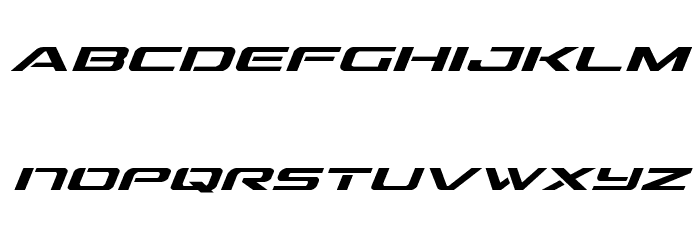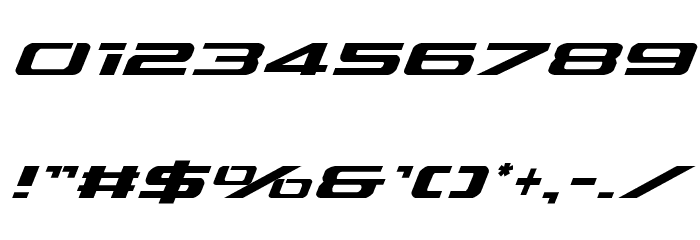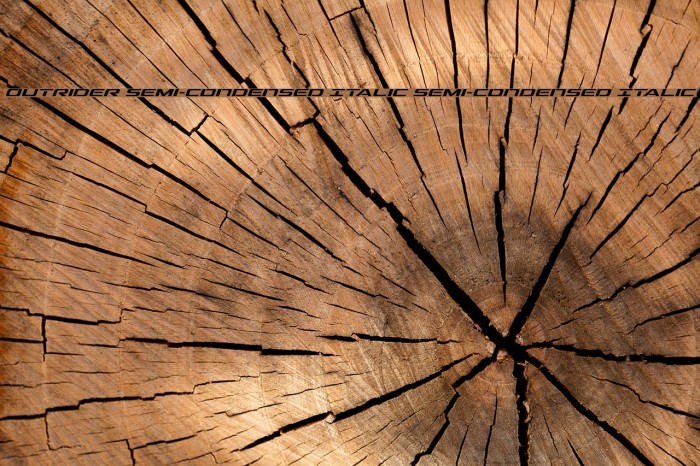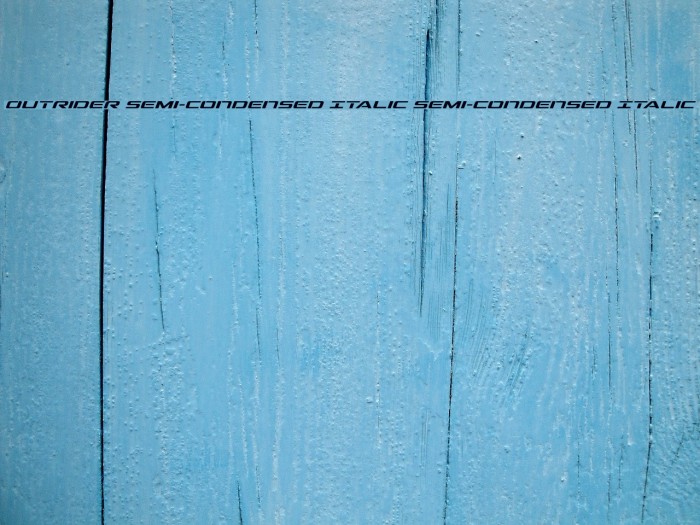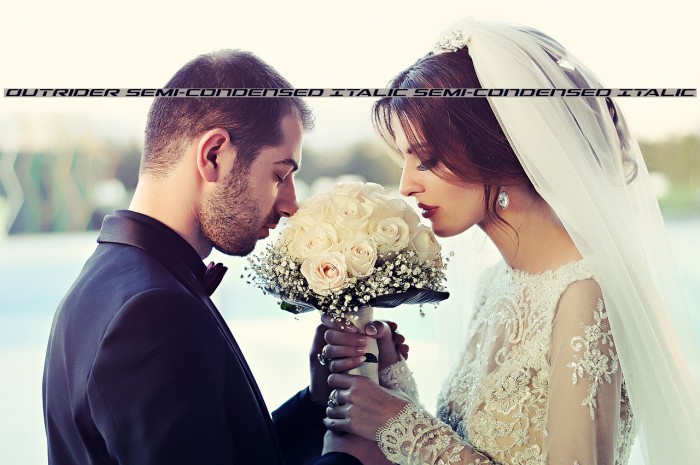
Outrider Semi-Condensed Italic Font
This font features a sleek, modern design with a semi-condensed and italicized style. The characters are slightly slanted, giving a dynamic and forward-moving appearance. The strokes are consistent in thickness, providing a uniform look across all characters. The font maintains a balance between readability and style, making it suitable for various applications. The numerals and special characters are designed to match the overall aesthetic, ensuring cohesion throughout any text. Its futuristic and streamlined appearance makes it ideal for projects that require a contemporary and edgy feel.
A sleek, modern, semi-condensed italic font with consistent stroke thickness.
- Proposed Projects: Ideal for branding, advertising, and digital media projects that require a modern and dynamic look.
- Use Case: Headlines, Logos, Digital Media